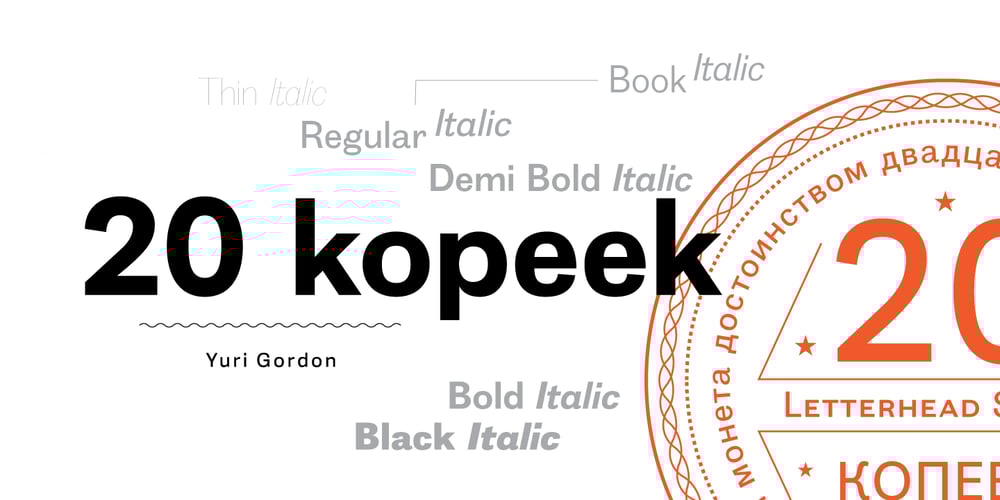
20 Kopeek Font Family was designed by Yuri Gordon and published by Letterhead Studio-YG. 20 Kopeek contains 14 styles and family package options. 20 kopeek is sans serif font with a slight touch of a steampunk.